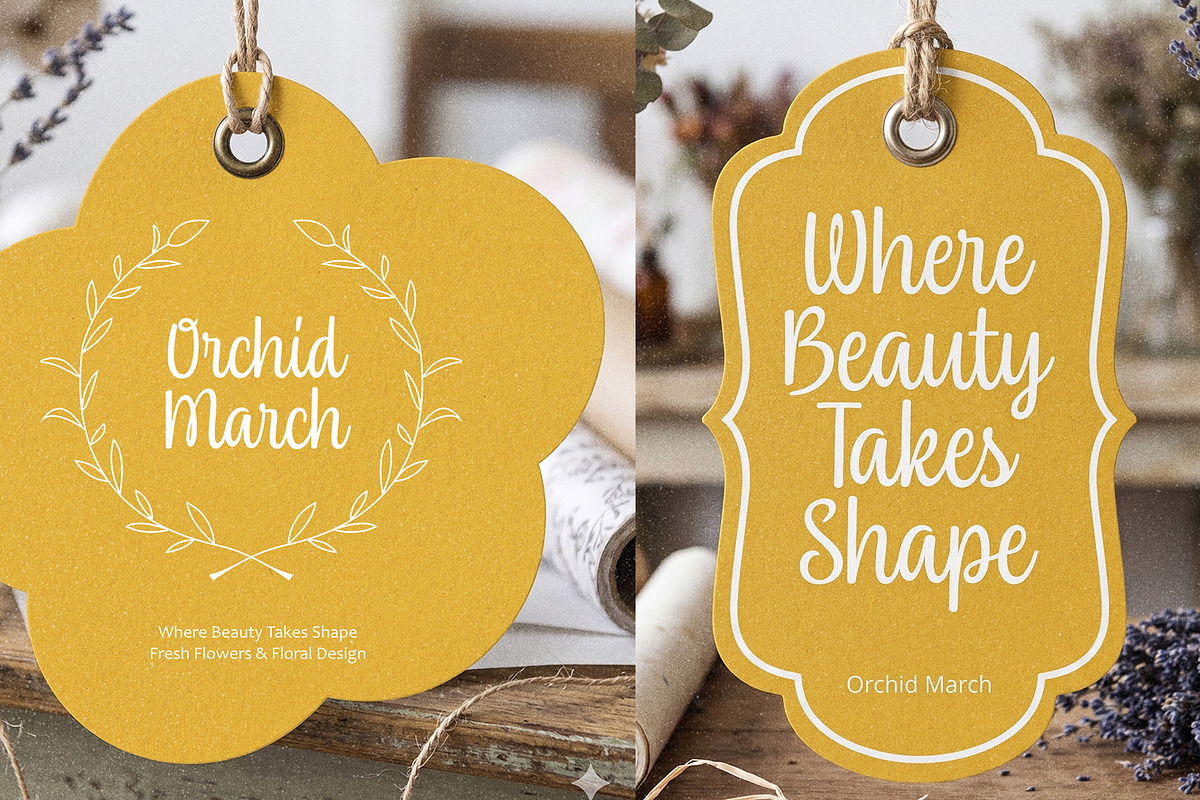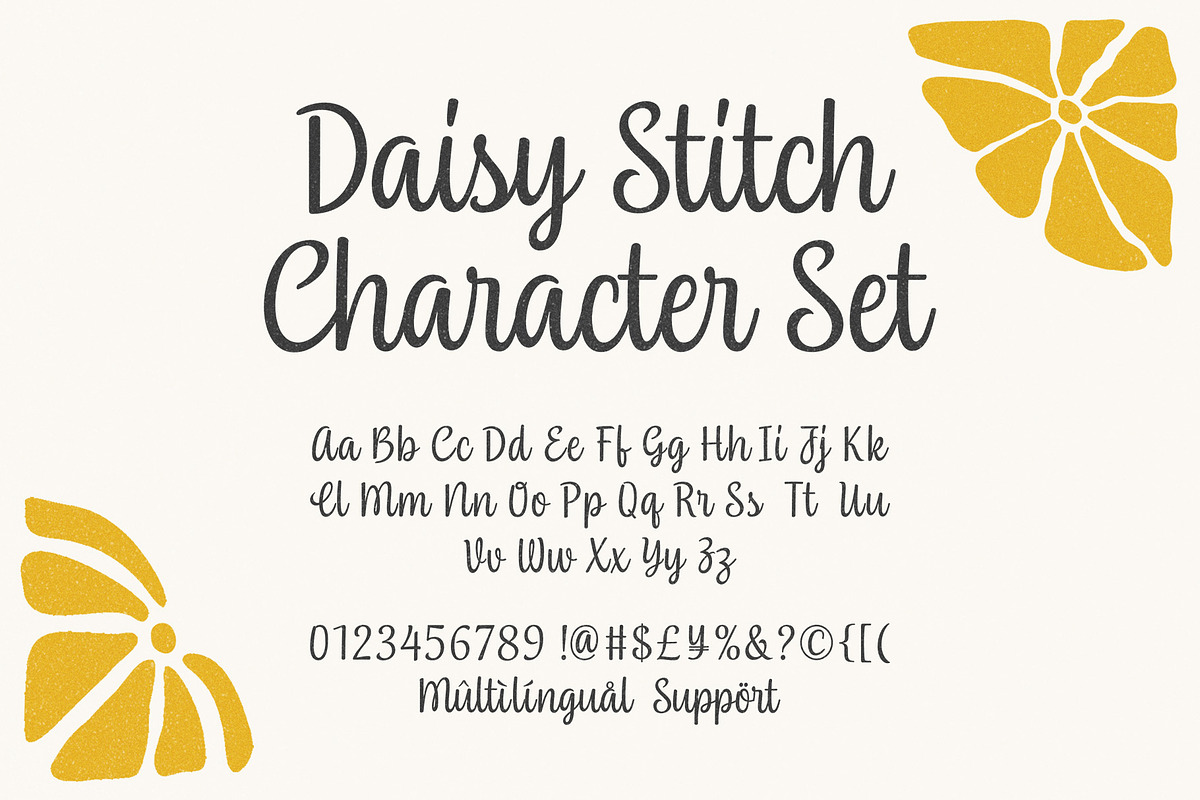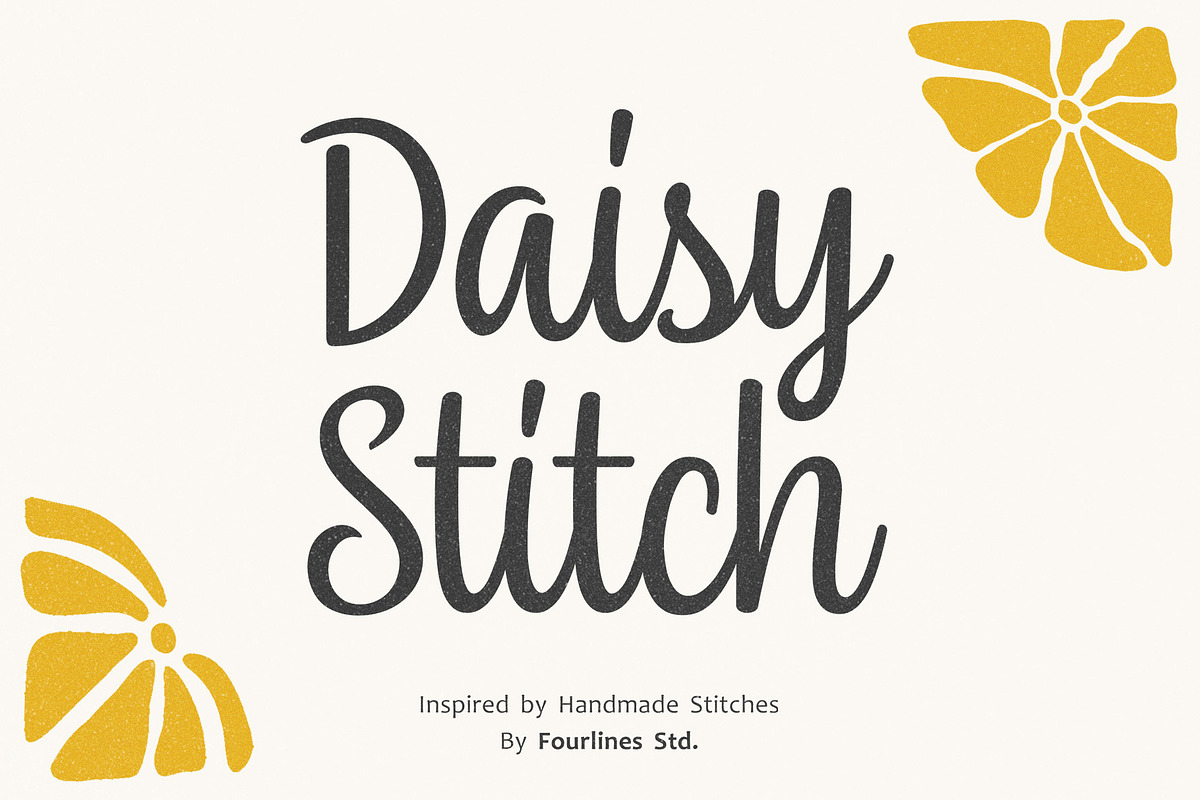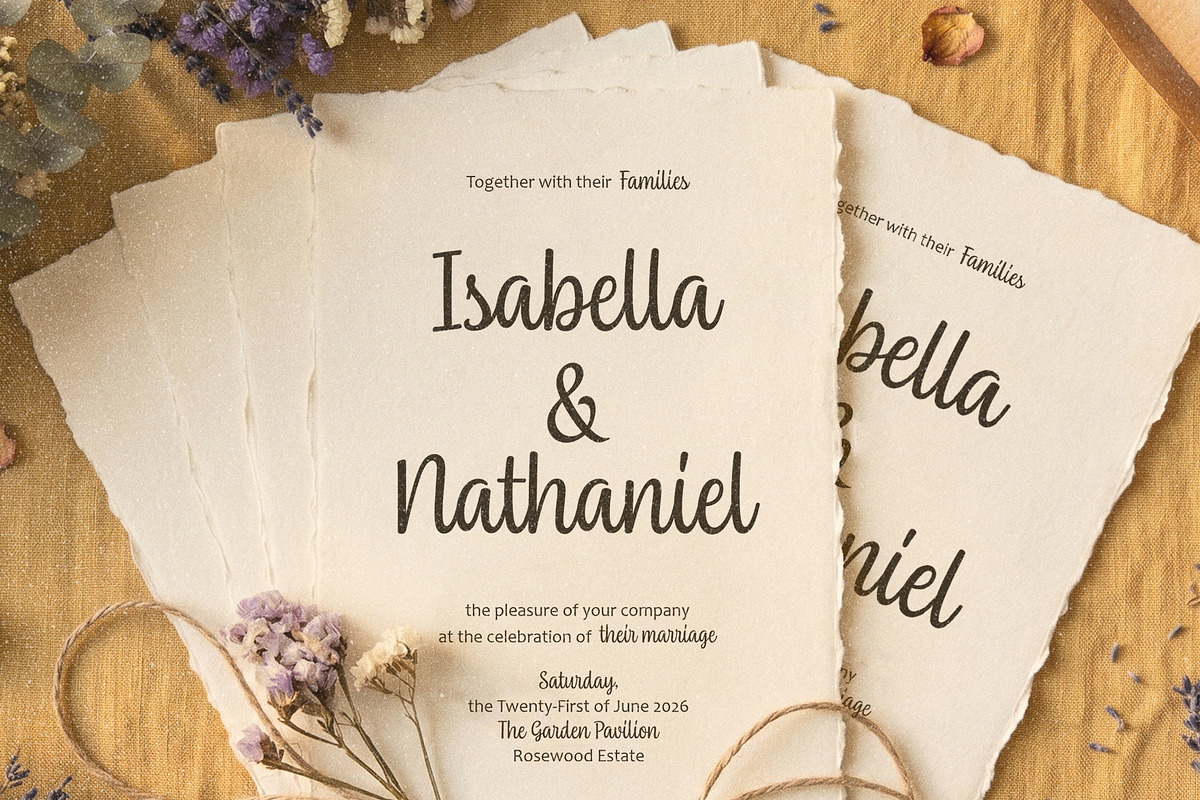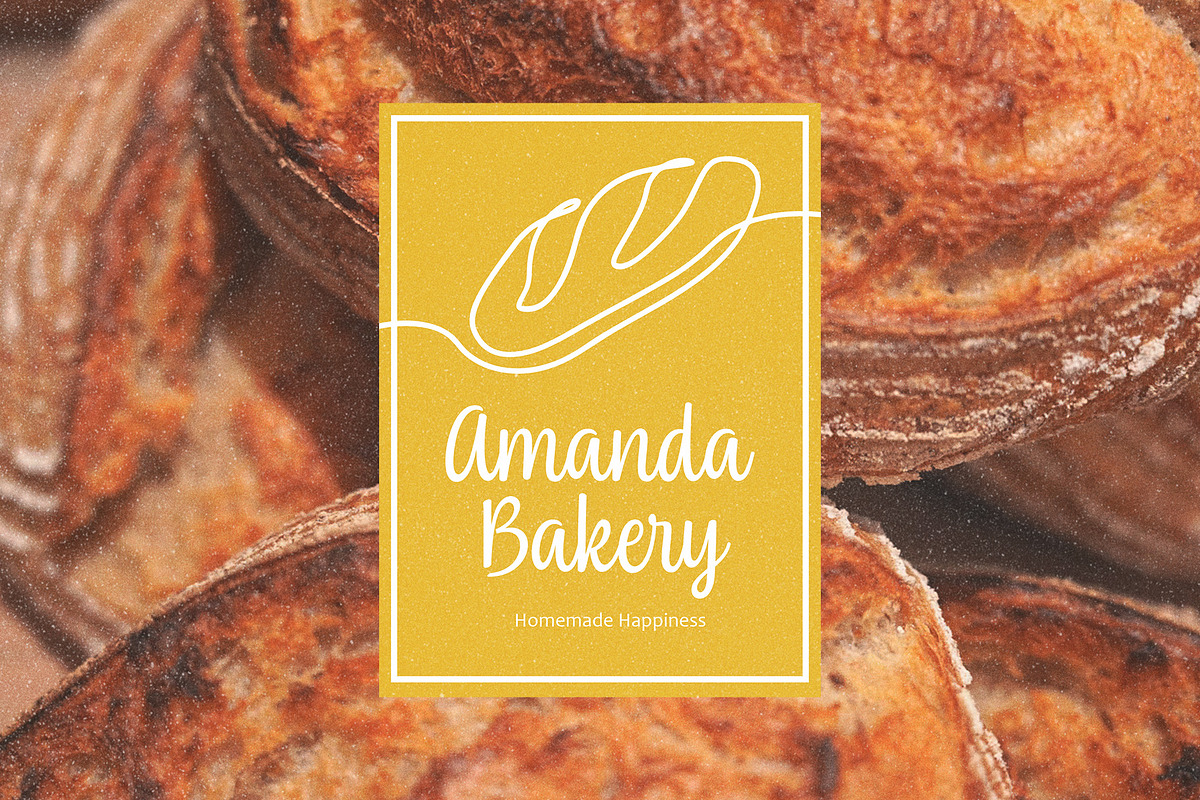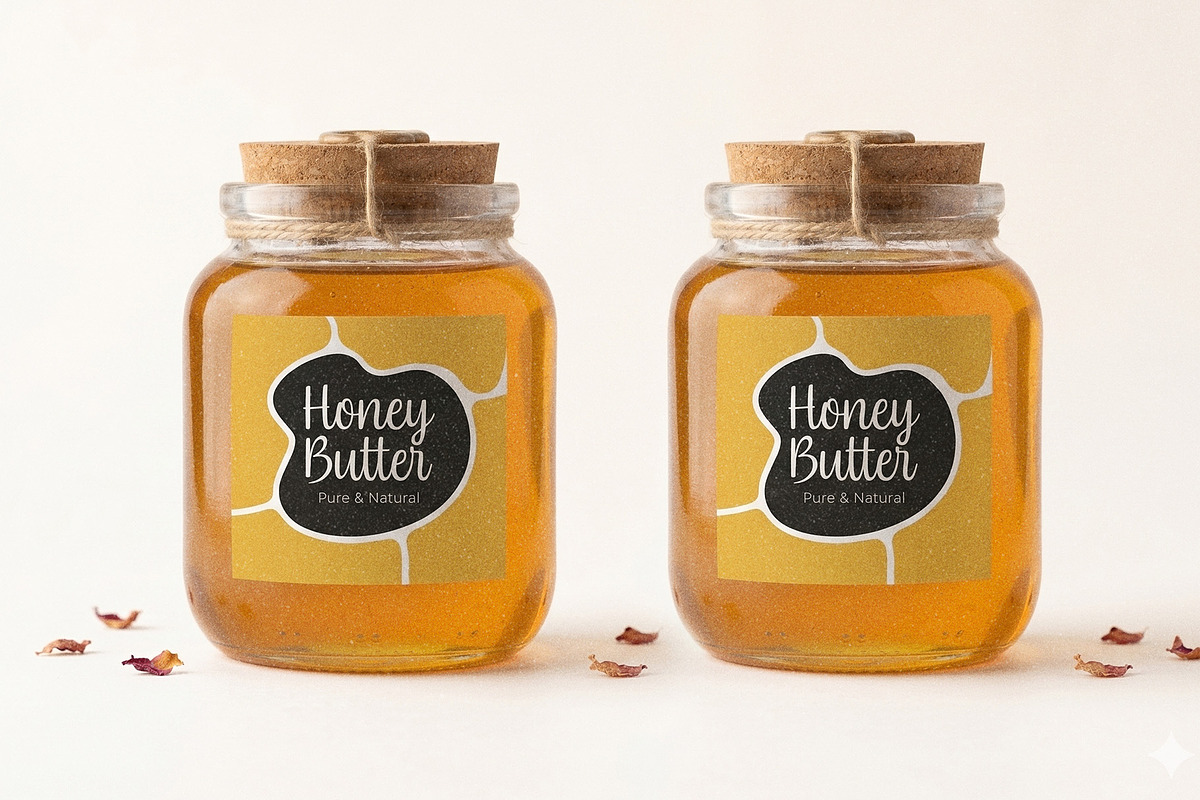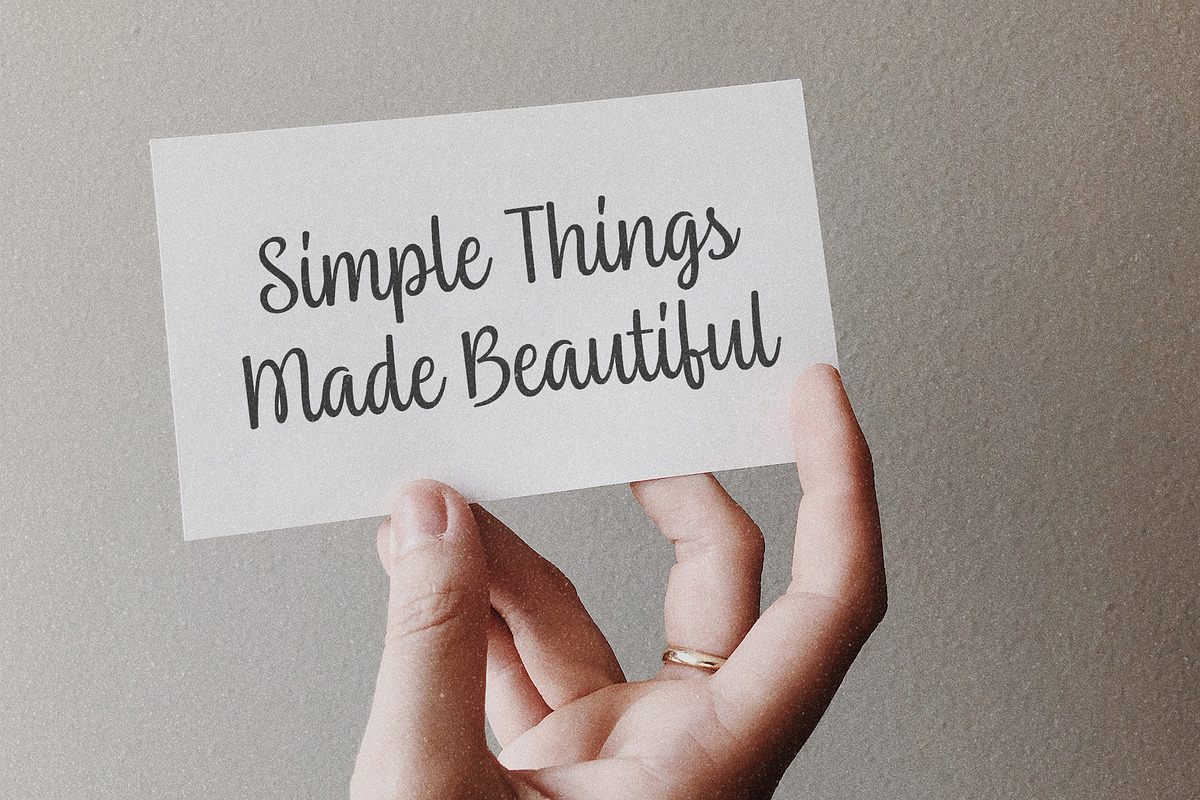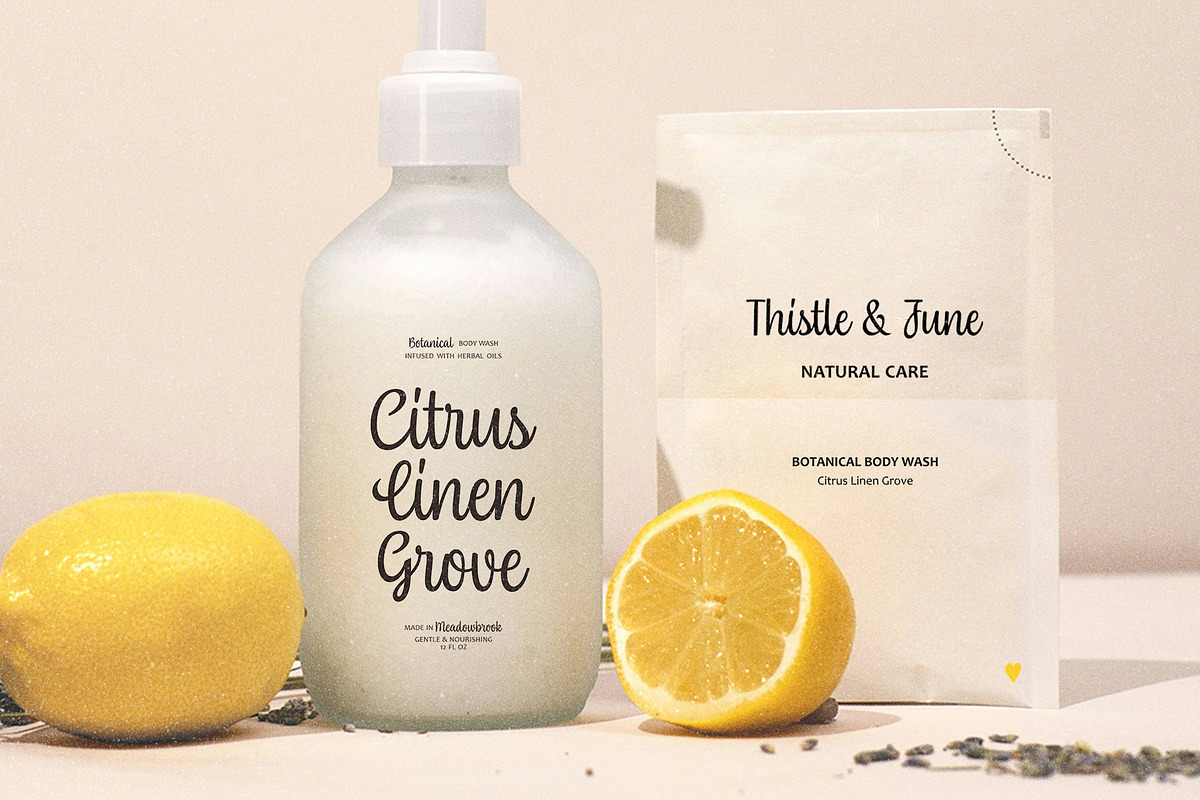
Daisy Stitch: A charming handwritten
Daisy Stitch is a handwritten script font designed with flowing letterforms, balanced proportions, and excellent readability. Each character features a natural appearance with soft strokes that create a warm, friendly, and handcrafted feel.
This font is versatile enough for a wide range of design projects, including branding, logos, product packaging, labels, invitations, stationery, and digital content. Its character blends effortlessly with modern, minimalist, rustic, and cottagecore design styles.
Daisy Stitch includes uppercase and lowercase letters, numerals, punctuation, and multilingual support, making it suitable for a variety of languages and creative applications.